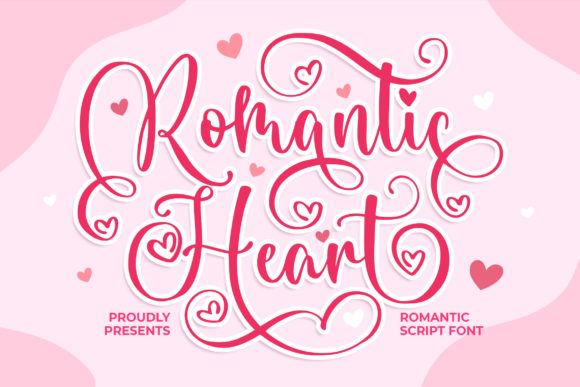
Journey on a Romantic Adventure with "Romantic Heart" Font
Step into the realm of elegance and grace with "Romantic Heart" font, a captivating script font that will make your creative visions soar. Dive into a world of heartfelt expression as this font unveils a symphony of emotions, transforming your words into visual masterpieces.
Crafted with meticulous attention to detail, "Romantic Heart" embodies the allure of a handwritten love letter, evoking a touch of nostalgia and charm. Its sweeping strokes dance across the page like a lover's caress, leaving a trail of beauty and enchantment.
With its wide-ranging versatility, "Romantic Heart" flourishes effortlessly from heartfelt greeting cards to bold headlines, weaving magic into every project it adorns. Be it a passionate love story or an inspiring tale of romance, this font serves as your eloquent messenger, capturing the essence of emotions with each stroke.
Beyond its aesthetic beauty lies a world of convenience. "Romantic Heart" comes fully encoded with PUA (Private Use Area), granting you easy access to a treasure trove of exquisite glyphs and swashes. Unleash your creativity and let your designs flourish with limitless possibilities.